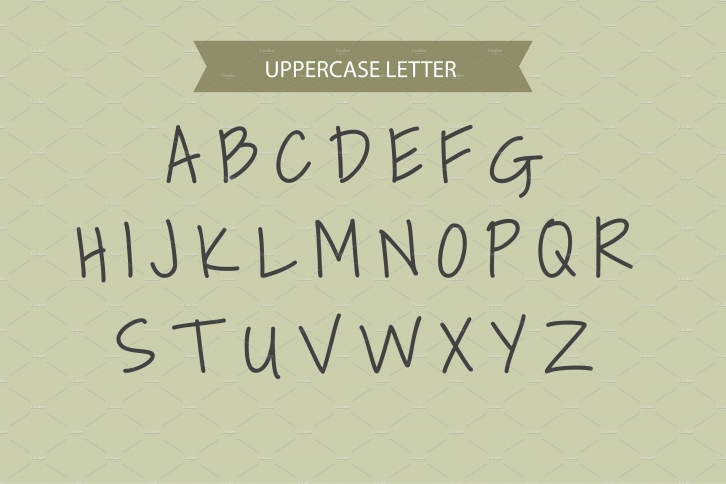
Make your creative design with “Crazy Marker†4 in one family Font suitable for any creative design
Crazy Marker Font Information:
Crazy Marker Font is a stylish hand made Font, Available in
Crazy Marker Brushy
Crazy Marker Liquid
Crazy Marker Regular
Crazy Marker Style
4 in one version with all special characters.
Make your design with Crazy Marker Font
Suitable for:
Magazine design
Cover design
Flyer design
Display font
Web site Slider Font
Hade line font
Regular font
Product name
Etc.